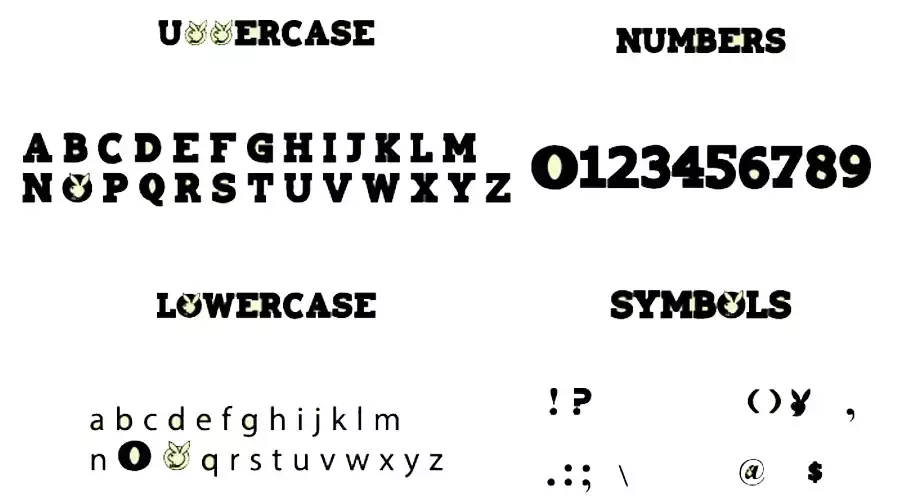
What is Playboy? And where can you get Playboy Font? Let’s answer your questions now! Playboy is a famous American men’s lifestyle and entertainment magazine founded in 1953 by Hugh Hefner. The magazine is known for its provocative articles, interviews, and photographs of bold women.
Iconic Playboy Logo
Playboy also has a distinctive logo that features a stylized silhouette of a rabbit wearing a tuxedo bow tie. The Playboy logo is one of the most recognizable symbols in the world. It has been used on various products, such as clothing, accessories, jewelry, and even video games. The logo is also a popular tattoo design for both men and women who want to express their sexuality, freedom, or rebelliousness.
The logo reflects the magazine’s playful, charming, amusing, and lively character, as well as its sexual, modern, and sophisticated appeal. Hugh Hefner, the founder of Playboy, chose the logo because he liked the idea of a rabbit as a humorous and smart animal. And the logo was associated with his Playboy Mansion where he held lavish parties and events. The logo has remained unchanged since its creation, except for some variations in color and style depending on the context.
What font was used in Playboy Font?
The logo uses a custom font created specifically for Playboy. So, the Playboy font is not available to everyone. However, there are two alternative fonts similar to the logo, and can be used to create your own Playboy-inspired designs. They are Playtoy Font and Rockwell Bold. Let’s check them out now!
About Playtoy Font
Playtoy is a popular Serif font with a striking resemblance to the Playboy logo font. Sharkshock Fonts, based in Raleigh County, North Carolina, in the United States of America, is the designer and publisher of this font. Dennis Ludlow is the founder of the company. He’s very passionate about making digital products, photos, and cool fonts.
Rockwell Bold Font
Rockwell Bold Font is a classic slab-serif font with a similar shape and style to the logo. It is suitable for creating titles, captions, labels, signs, or any other design that requires solid and elegant text.
What Is Playboy Magazine?
Playboy is a globally recognized brand that was started in 1953 by American entrepreneur, Hugh Hefner. It all started with a magazine called Playboy. The publication features pictures, articles, interviews, and fiction covering a variety of subjects. The magazine quickly gained a following due to the quality of its photography and interviews with notable figures such as celebrities, politicians, and other public figures. The Playboy bunny is an iconic symbol that is closely associated with the Playboy brand. The iconic bunny head logo was first introduced in 1953 and was designed by Art Paul, the first art director of Playboy Magazine.
Hefner was the creator, chief editor, and publisher of the magazine. He is also remembered for his appearance on the reality TV show “The Girls Next Door” which documented his life in the Playboy Mansion. Hefner passed away on September 27, 2017, but the Playboy brand remains an iconic and well-known symbol of pop culture, even today.
In conclusion,
Playboy Font is a custom design created by Art Paul for the Playboy magazine logo. It is not based on any existing font, but there are two fonts similar to it that can be used as alternatives: Playtoy Font and Rockwell Bold Font. You can use these fonts for various creative projects, but you should be careful not to offend or disrespect anyone with your designs. You can also use our Playboy Font Generator to see how your text looks in these fonts and download them for free.
FAQs
Who created the Playboy brand and magazine?
Ans: American entrepreneur Hugh Hefner created the Playboy brand and magazine in 1953.
What type of design projects is the Playtoy font suitable for?
Ans: The Playtoy font can be used in various design projects such as invitations, posters, social media posts, blog or website design, and graphic design projects related to fashion, beauty, and luxury products.
What is the history of the Playboy logo?
Ans: The iconic Playboy bunny head logo was introduced in 1953 and designed by Art Paul, the first art director of Playboy magazine.